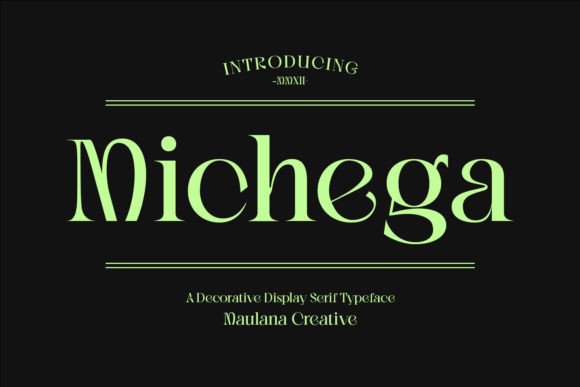
Introducing Michega Font, the Enchanting Serif Font That Will Transform Your Designs
In a world of digital expression, typography has emerged as the silent storyteller, whispering messages through the shapes of letters. As a serif font, Michega holds a special place in this visual symphony, inviting you to dance with its graceful curves and bask in its timeless elegance.
Michega isn't just a font; it's an experience, a journey to a realm where letters are not mere symbols but works of art. Its meticulously crafted serifs, like tiny crowns atop each character, add a touch of royalty to your words, turning them into exquisite tapestries of meaning.
Unlike ordinary fonts that blend into the background, Michega demands attention, commanding a presence that captivates and mesmerizes. Its strokes, like the delicate brushstrokes of a master calligrapher, evoke a sense of sophistication and timeless beauty.
As the name suggests, Michega is a masterpiece optimized for retina displays, where every pixel dances with precision, ensuring your designs shine in radiant clarity. Whether on a website, social media post, or printed invitation, Michega will make your words radiate with brilliance.
Dive into the world of Michega and unleash your creativity. Picture wedding invitations that exude timeless romance, stationery art that whispers of elegance, and social media posts that captivate with their visual splendor. Michega transforms the ordinary into the extraordinary, imbuing every letter with a touch of magic.
Join the ranks of discerning designers who have discovered the allure of Michega. Let its graceful serifs elevate your work, adding a touch of sophistication and enchantment to your designs. Embrace the power of typography and let Michega be your muse, guiding you toward design masterpieces that will leave an unforgettable impression.